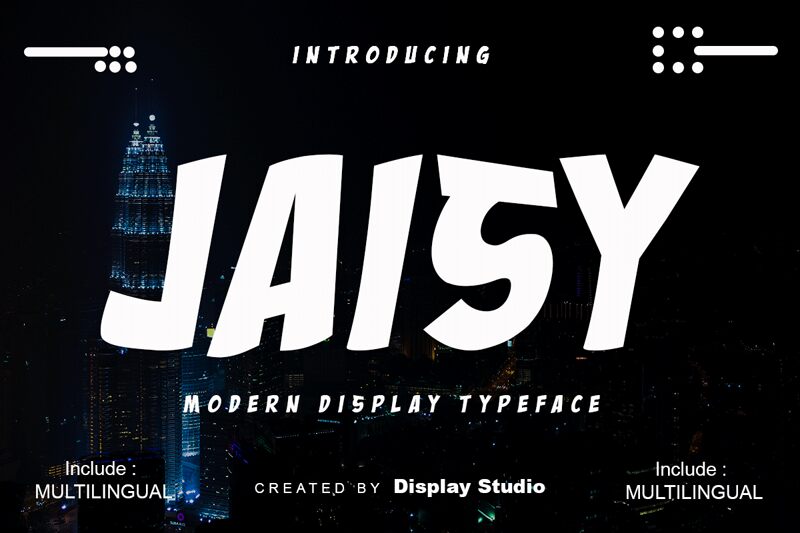
JAISY
Introducing JAISY, the bold and quirky display font from Display Studio. With its distorted comic style, JAISY is perfect for projects that need a playful and lively touch. From children's books to marketing materials, this font will add a fun twist to any design. Its bold weight ensures that your message won't go unnoticed, making it suitable for eye-catching headlines and titles. Whether you're creating posters or social media graphics, JAISY is the perfect choice for those looking to add a touch of whimsy to their designs. Try it out today and watch your project come to life!